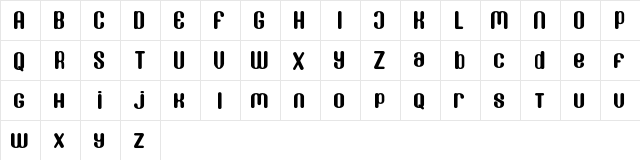
Donaldson demo Regular
| Foundry | Kong Font |
| Designer | Kong Font |
Design Context for Donaldson demo Typeface
Donaldson demo is a composed and adaptable typeface that performs quietly and consistently across a wide range of design contexts.